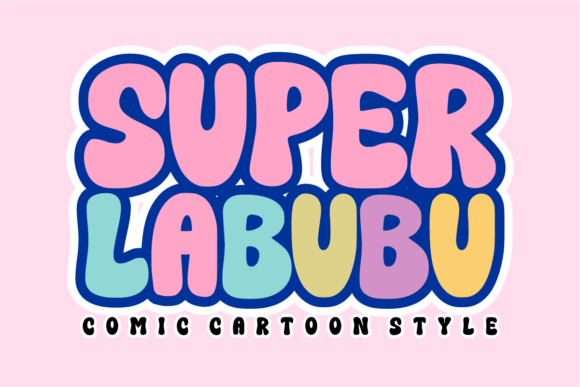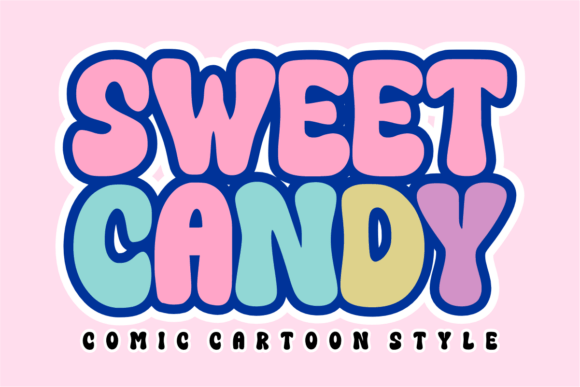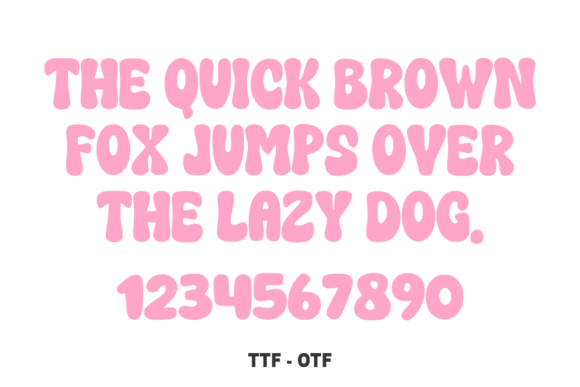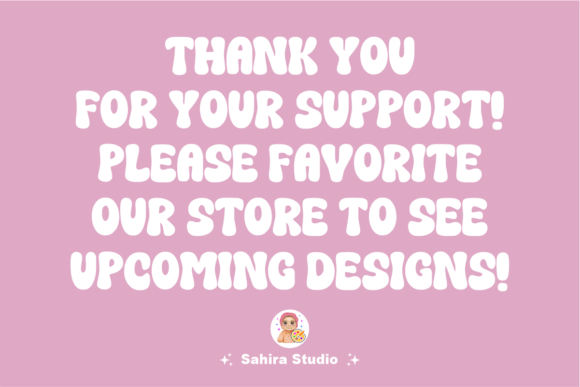
Get Ready to Pop Your Designs with the Cutest Font Around!
You know that moment when you’re brainstorming ideas for a new project, and you just can’t seem to find the right font to bring it all together? That’s exactly what happened to us when we stumbled upon the adorable Gemoy Bubbles Font! Its playful, bouncy characters instantly captured our hearts and inspired us to share it with the world.
This charming display font is specifically designed to add a splash of joy and “chubbiness” to your creative projects. With its soft, rounded, and plump characters, Gemoy Bubbles Font is perfect for high-impact designs that need to feel friendly, modern, and full of life. Whether you’re a seasoned designer or just starting out, this font is sure to bring a smile to your face and make your designs stand out from the crowd.
Gemoy Bubbles Font Key Features
- Character Count: The font includes 500+ unique characters, including uppercase and lowercase letters, numbers, punctuation marks, and special characters, making it suitable for a wide range of applications.
- Unique Characteristics: Gemoy Bubbles Font features a playful, hand-drawn design with rounded bubbles and soft edges, creating a friendly and approachable atmosphere.
- Font Style: Gemoy Bubbles Font includes 2 font styles: Regular and Bold, providing designers with options to create contrast and emphasis in their designs.
Gemoy Bubbles Font Review
Overall, I have mixed feelings about the Gemoy Bubbles Font. It’s a fun and playful font that can add a touch of whimsy to any design project. Here’s what I like about it:
- ✨ Unique design: The font’s bubbly, rounded shape is instantly recognizable and sets it apart from more traditional fonts.
- ✨ Versatility: Gemoy Bubbles can be used for a variety of projects, from children’s books to social media graphics.
- ✨ Readability: Despite its playful nature, the font is surprisingly easy to read, even at smaller font sizes.
- ⚠️ Limited font sizes: While the font is easy to read at larger sizes, it can become distorted at smaller sizes, making it less suitable for body text.
- ⚠️ Limited language support: The font may not be compatible with non-English languages, which could limit its use in global projects.
- ⚠️ Overuse: The font’s playful nature can make it feel overused or clichéd if used too extensively.
Overall, I think Gemoy Bubbles Font is a great choice for projects that need a fun, playful touch. However, it’s essential to use it judiciously and consider its limitations when selecting a font for your design project.
Getting the Most Out of Gemoy Bubbles Font
To get the most out of Gemoy Bubbles Font, try the following tips:
- Use the font in combination with colorful backgrounds to create visually appealing designs.
- Experiment with different font sizes and colors to create a unique look.
- Use the font in conjunction with other design elements, such as graphics and images, to create a cohesive design.
The Gemoy Bubbles Font is perfect for:
- Creating playful and fun designs for social media and advertising campaigns.